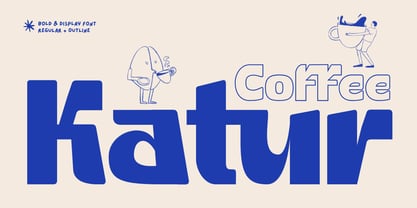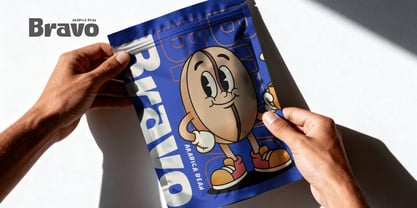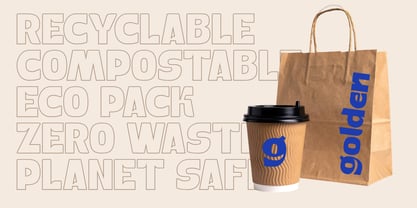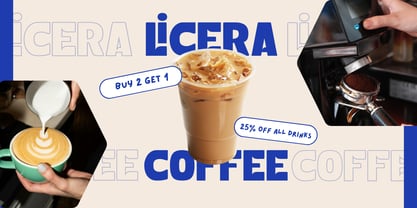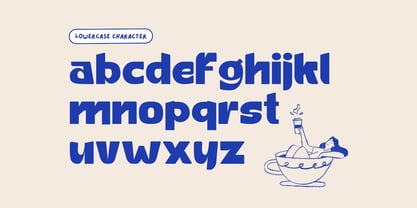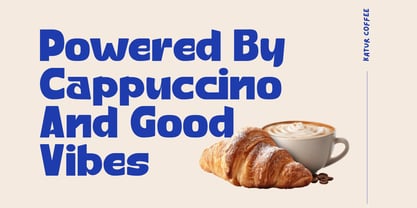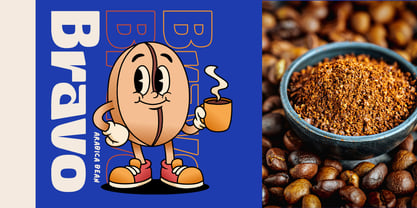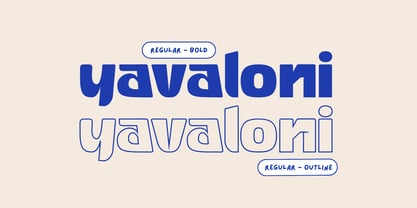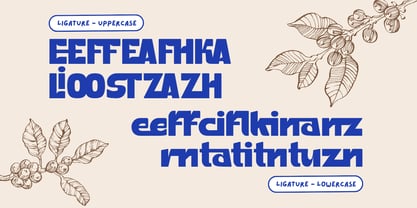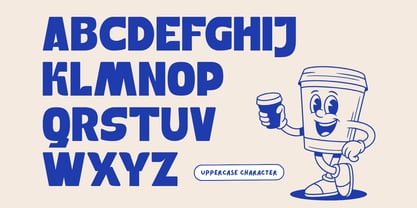
Katur Coffee
The Katur Coffee Font Family was designed by Bayu Suwirya and published by Illushvara. Katur Coffee contains 2 styles and family package options. More about this family
Katur Coffee is a bold display sans font crafted to energize modern coffee branding. Featuring clean geometric forms with a stylish outline bonus, it brings a fresh yet edgy look to logos, menus, and promotional designs. The ligature-rich style adds a unique rhythm, creating seamless letter connections that feel both dynamic and refined. Perfect for coffee shops, food packaging, and urban branding, Katur Coffee blends contemporary aesthetics with playful character, making every design stand out with confidence and flavor.